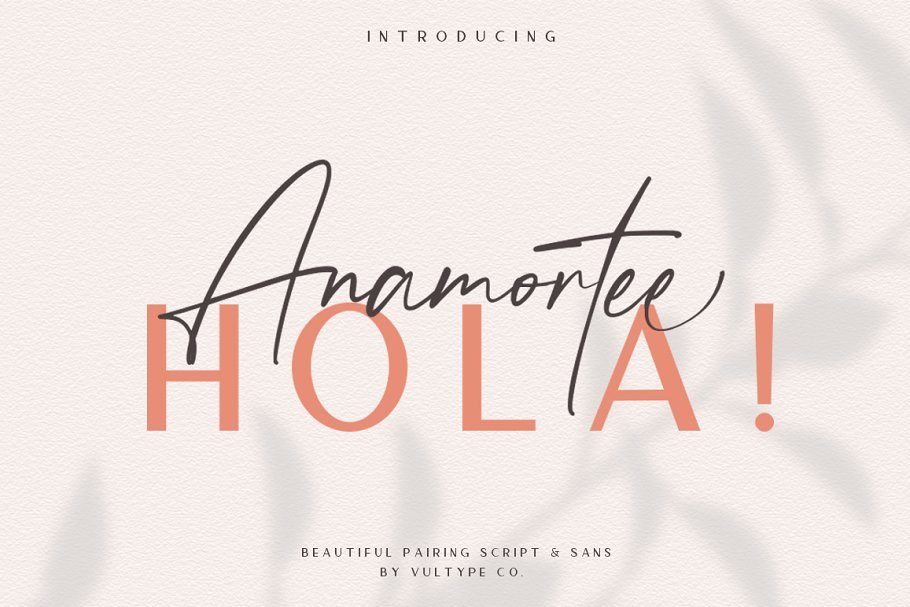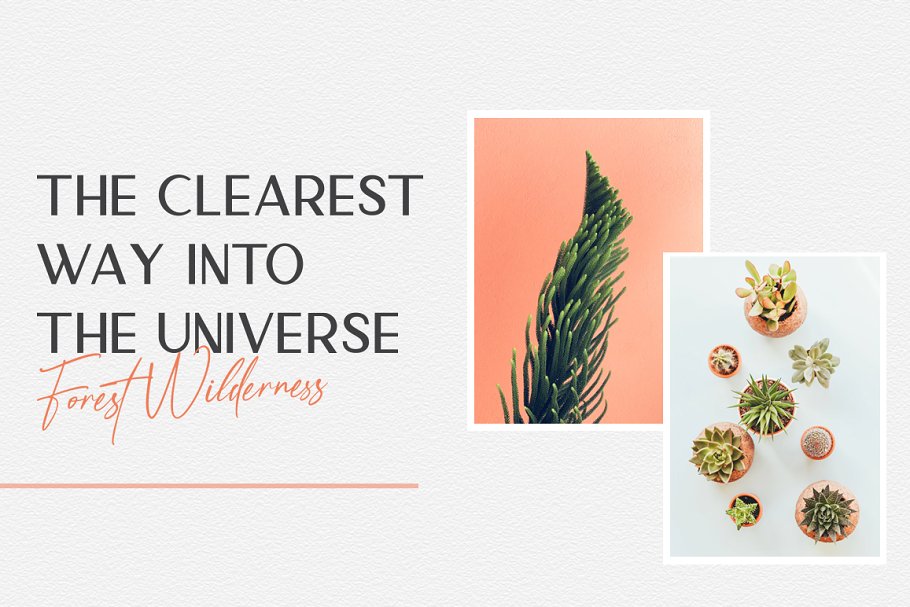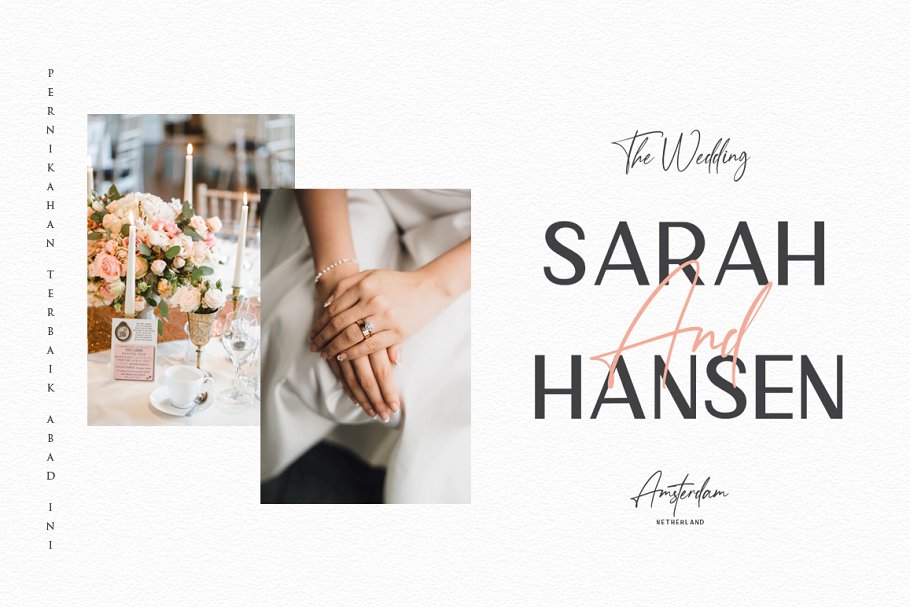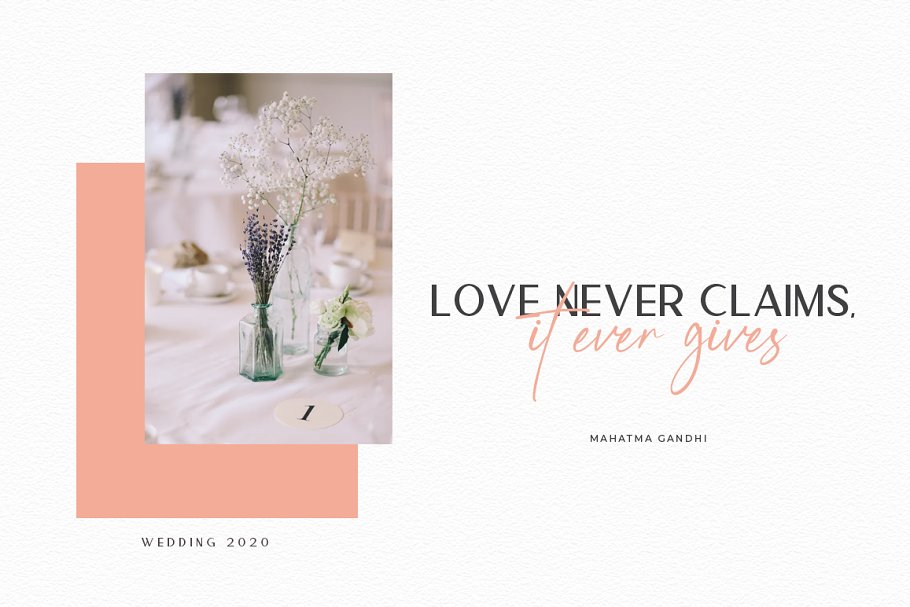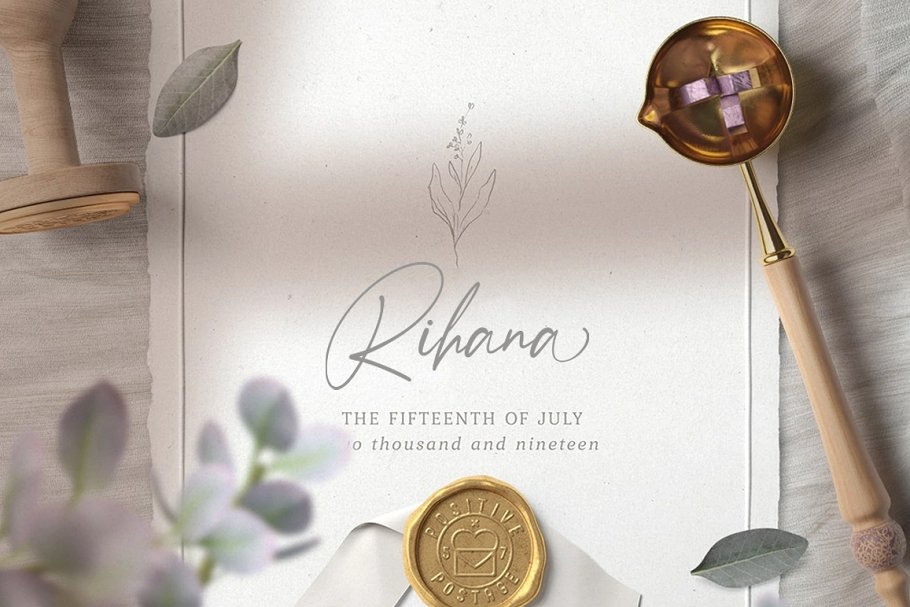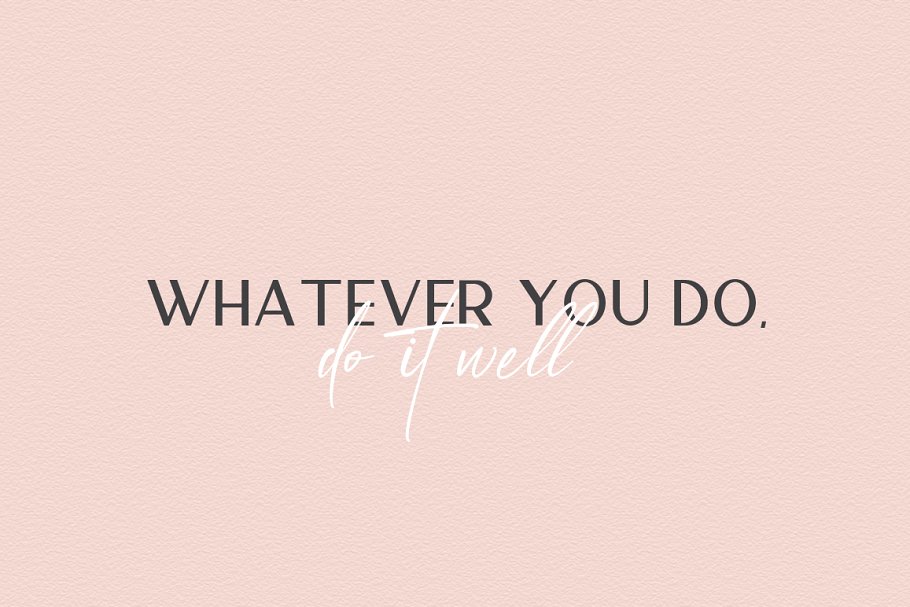
Anamortee Modern Calligraphy Font Free Download
About the Anamortee Modern Calligraphy Font
Popular Fonts From Vultype Co, Batisde Font – https://creativemarket, com/vultype/3963434-Batisde-Font-Free-LogosAurelig – https://creativemarket, com/vultype/4586904-Aurelig-Vintage-Script-%283-Fonts%29Boilgo Font – https://creativemarket, com/vultype/4345252-Boilgo-Handwritten-Font Quefira – https://creativemarket, com/vultype/3894435-Quefira-Aesthetic-Script-FontAnamortee is lovely script and sans with beautiful ligature and alternate font
It easily cooperating together For Magazine, Movies, or Book Titles, For Photography, Wedding Invitation, Restaurant Menu or T-shirt Design, For Flyers, Banner Ads, web and printing, From Food and Fashion to a Cosmetics productBoilgo Font Features :OTF + TTF filesUpper + Lowercase LettersNumbers + PunctuationLigature FeatureOpenType featuresMultilingual supportSoftware for use this font: Adobe Illustrator, Adobe Photoshop, Adobe Indesign, Word, Corel draw, inkscape)